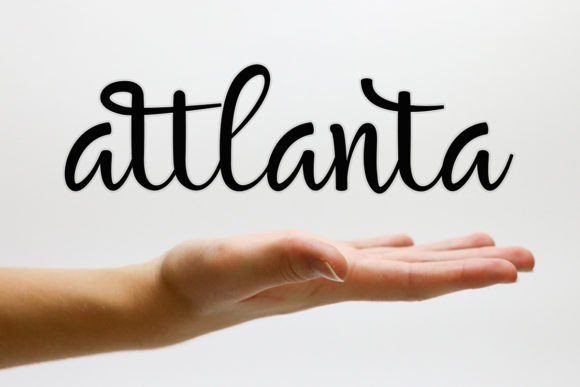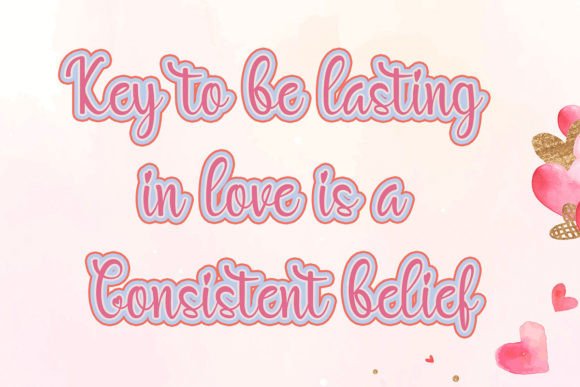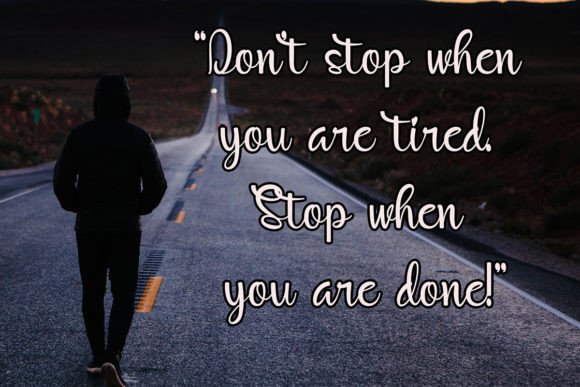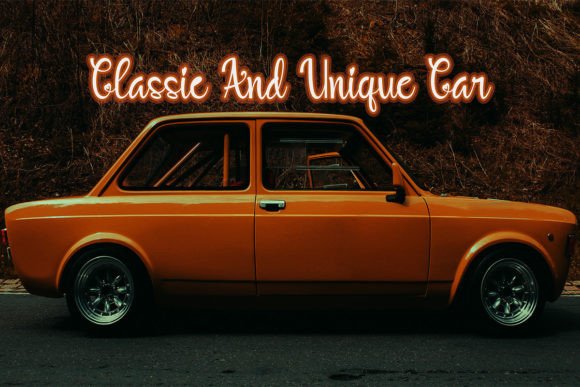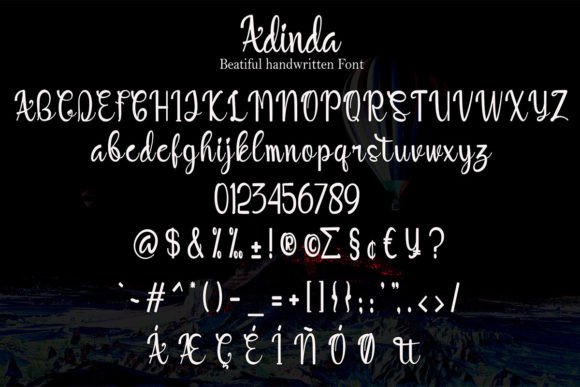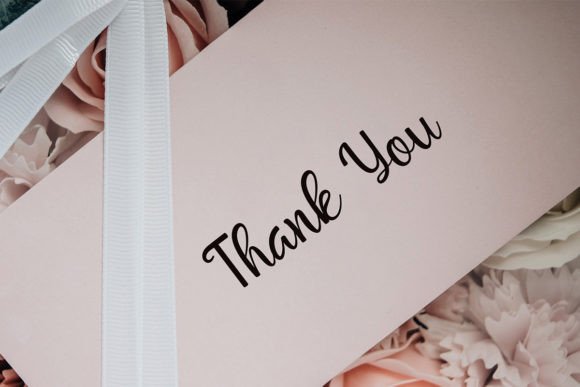
Introducing Adinda Font: The Perfect Handwritten Font for Your Creative Projects
Are you a designer or crafter looking for a unique and beautiful font to elevate your creative projects? Look no further than Adinda Font! This stunning handwritten font is perfect for creating gorgeous wedding invitations, beautiful stationery art, eye-catching social media posts, and any other design project you can imagine.
What Makes Adinda Font So Special?
Adinda Font is a one-of-a-kind handwritten font that exudes charm and elegance. Its cute and beautiful design makes it perfect for a wide range of creative projects, from formal wedding invitations to playful social media posts. With Adinda Font, you can add a personal touch to your designs and make them truly stand out.
Perfect for Wedding Invitations and Stationery
Adinda Font is an ideal choice for creating stunning wedding invitations, stationery, and other paper goods. Its elegant and sophisticated design makes it perfect for formal events, while its playful and whimsical feel also makes it suitable for more casual gatherings. Whether you’re a designer or a crafty DIY bride, Adinda Font is sure to impress.
Eye-Catching Social Media Posts
In today’s digital age, social media is a crucial platform for businesses, bloggers, and creatives to showcase their work. With Adinda Font, you can create eye-catching social media posts that grab attention and leave a lasting impression. Whether you’re promoting a product, sharing a blog post, or simply connecting with your audience, Adinda Font is the perfect choice.
Adinda Font is a versatile font that can be used for a wide range of creative projects, including:
- Blog posts and articles
- Product labels and packaging
- Signs and banners
Why Choose Adinda Font?
So why choose Adinda Font for your creative projects? Here are just a few reasons:
- Unique and eye-catching design: Adinda Font is a one-of-a-kind font that will make your designs stand out from the crowd.
- Easy to read and use: Adinda Font is clear, legible, and easy to use, making it perfect for a wide range of creative projects.
- Versatile: Adinda Font can be used for a wide range of creative projects, from formal to playful.
- High-quality: Adinda Font is a high-quality font that is designed to deliver exceptional results.
Get Creative with Adinda Font
Ready to unleash your creativity with Adinda Font? With its stunning handwritten design and endless creative possibilities, Adinda Font is the perfect choice for designers, crafters, and anyone looking to add a personal touch to their designs.
In conclusion, Adinda Font is a beautiful and versatile handwritten font that is perfect for a wide range of creative projects. With its unique and eye-catching design, ease of use, and endless creative possibilities, Adinda Font is a must-have for designers, crafters, and anyone looking to elevate their designs.